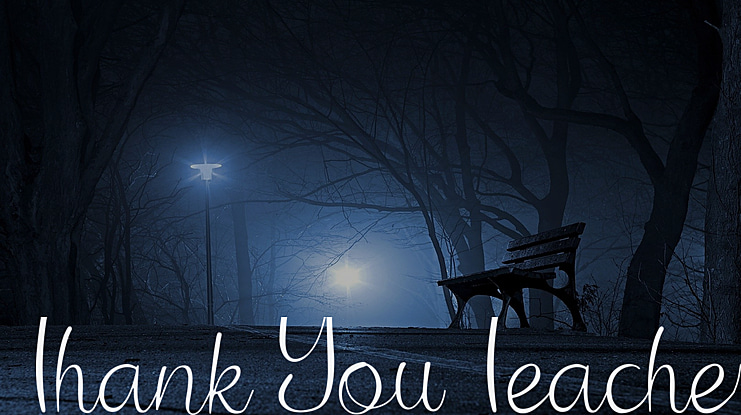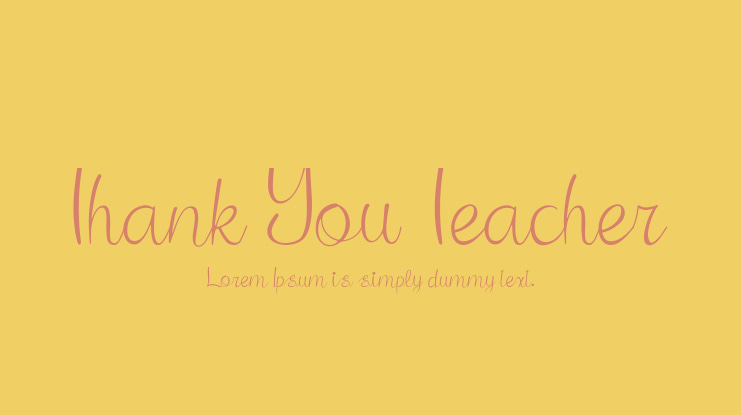
Thank You Teacher Font
Thank you, Teacher is a lovely and delicate script font that exudes elegance and class. This font was particularly crafted for those who need a beautiful and refreshing look to their designs.